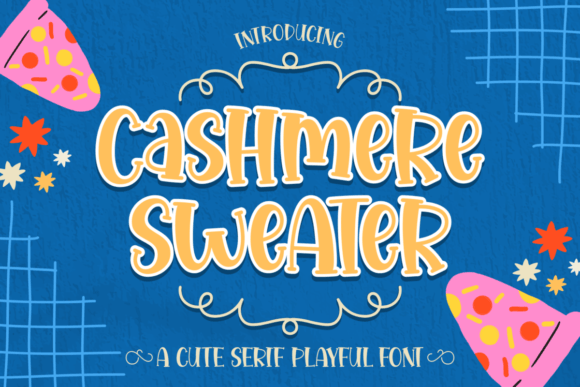
Introducing Cashmere Sweater Font: The Ultimate Addition to Your Design Library
Are you tired of using the same old fonts in your designs? Look no further! We’re excited to introduce Cashmere Sweater Font, a cute and playful serif font that’s sure to add a touch of whimsy to your creative projects. In this article, we’ll dive into the features and benefits of this delightful font, and explore how it can bring your designs to life.
What is Cashmere Sweater Font?
Cashmere Sweater Font is a unique and charming serif font that’s perfect for designers and crafters looking to add a dash of personality to their work. This font is fun, quirky, and incredibly versatile, making it suitable for a wide range of applications, from posters and fabric prints to nursery decorations and papercrafts.
Key Features of Cashmere Sweater Font
- Cute and Playful Design: Cashmere Sweater Font boasts a distinctive serif design that’s both adorable and eye-catching. Its playful vibe is sure to capture the attention of your audience and leave a lasting impression.
- PUA Encoded: This font is PUA (Private Use Area) encoded, which means you can easily access all the glyphs and swashes with a single click. This feature makes it easy to get creative and experiment with different design elements.
- Highly Versatile: Cashmere Sweater Font is perfect for a variety of design projects, including posters, fabric prints, nursery decorations, papercrafts, and more. Its flexibility makes it an excellent addition to any design library.
Benefits of Using Cashmere Sweater Font
So, why should you choose Cashmere Sweater Font for your design projects? Here are just a few benefits you can expect:
- Adds a Touch of Whimsy: This font’s playful design is sure to add a dash of personality to your designs, setting them apart from the crowd.
- Increases Creativity: The unique design elements and swashes in this font will inspire you to think outside the box and explore new creative possibilities.
Design Ideas with Cashmere Sweater Font
Now that we’ve explored the features and benefits of Cashmere Sweater Font, let’s take a look at some design ideas to get you started:
- Posters and Flyers: Use Cashmere Sweater Font to create eye-catching posters and flyers for events, promotions, or announcements.
- Fabric Prints: Add a touch of personality to your fabric prints with this delightful font. Perfect for crafting, quilting, or textile design.
- Nursery Decorations: Create adorable nursery decorations, such as wall art, banners, or mobiles, with Cashmere Sweater Font.
- Papercrafts: Use this font to add a playful touch to your papercrafts, including cards, scrapbooking, or origami.